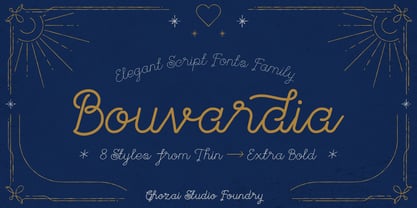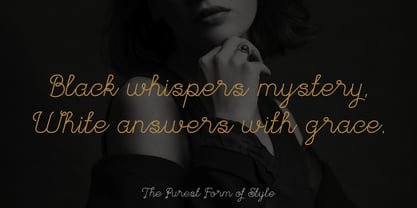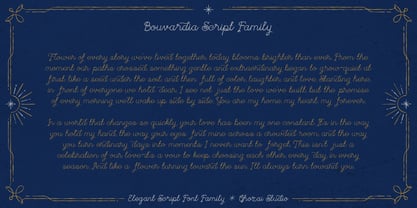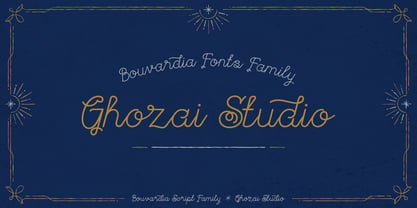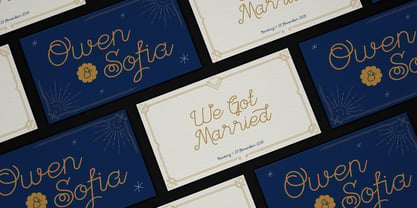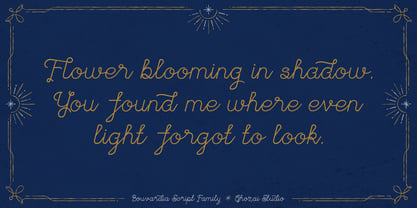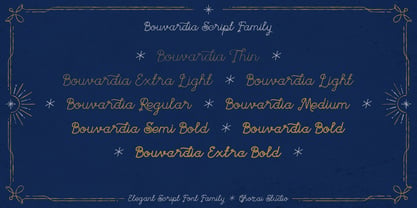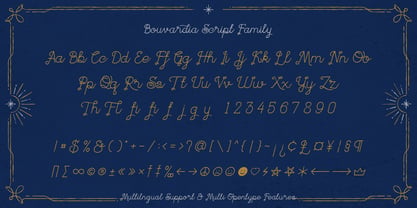
Bouvardia
by Ghozai Studio
The Bouvardia Font Family was designed by Manzur Ghozaali and published by Ghozai Studio. Bouvardia contains 8 styles and family package options. More about this family
Bouvardia is a clean handwritten script font that brings that warm, personal, and natural handmade vibe to your designs. Whether for something sweet and subtle or bold. Bouvardia comes in 8 styles from thin to extrabold. Featuring a variety of ligatures and alternate stylistic sets, this font creates a natural, handwritten look that adds personality and flair to your designs. Bouvardia is the perfect choice when you need a bold and authentic handwritten aesthetic. The versatility of this font makes it suitable for both digital and print media. Perfect for everything from wedding invites and greeting cards to branding and apparel, this font adds that just-right touch of personality and charm.
Designers: Manzur Ghozaali
Foundry: Ghozai Studio
About Ghozai Studio
Ghozai Studio is a design studio based in Jombang, Indonesia, founded by Manzur Ghozaali. We always try to create a high-quality diverse range of fonts that can be seamlessly integrated into any design project. We also believe that the process of creating a product should be enjoyable and fun. We know that when we have fun during the creation process, we can produce products that are more innovative and engaging for our customers.